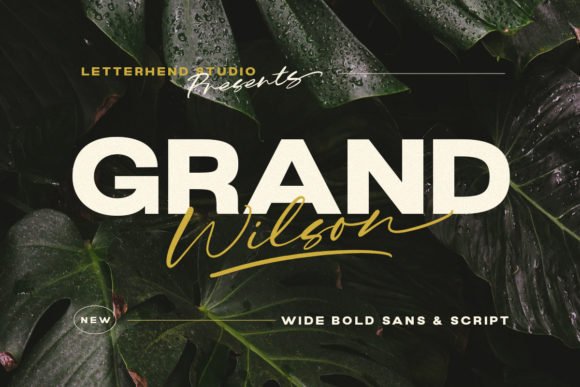
Meet Your New Design BFF: The Grand Wilson Font
There’s nothing quite like the feeling of stumbling upon the perfect font for your next design project. It’s like the universe is aligning, and your creativity is flowing like never before. You’re scrolling through your favorite font library, and suddenly, a font catches your eye. Its simple yet elegant style makes you think, “This is it. This is the one.”
That’s where the Grand Wilson Font comes in – a versatile duo font that combines the sleekness of a sans serif with the flair of a script. With its neat and simple design, it’s perfect for a wide range of projects, from logos and branding to digital graphics and typography.
As a designer, you know how valuable it is to have a reliable go-to font that can elevate your designs to the next level. The Grand Wilson Font is that font, offering a unique blend of style and flexibility that’s sure to become your favorite.
Grand Wilson Font Key Features
- Font Family: Grand Wilson Font is a high-quality sans-serif font designed for various digital applications.
- Character Set: Includes a wide range of characters, including Latin, Cyrillic, and Greek alphabets, as well as various punctuation marks and symbols.
- Unique Characteristics: Grand Wilson Font features a clean and modern design, with subtle rounded edges and a balanced x-height, making it perfect for corporate branding, digital interfaces, and editorial content.
Designer Review: Grand Wilson Font
Overall, I found the Grand Wilson Font to be a solid choice for a classic, elegant look. ✨ Here are some of its strengths:
- Beautifully crafted letterforms that evoke a sense of sophistication and refinement.
- Wide range of font weights and styles, making it suitable for a variety of design applications.
- Excellent legibility, even at smaller font sizes.
- The font may feel a bit too traditional for some modern design projects.
- The x-height could be improved for better readability in certain contexts.
- The font family may not be as extensive as some other popular font families.
Overall, I’d say the Grand Wilson Font is a great choice for designers who want to add a touch of classic elegance to their projects. While it may not be the most cutting-edge font, it’s a reliable and versatile option that can help to create a professional, timeless look. With a bit of creativity and experimentation, the Grand Wilson Font can be a valuable addition to any designer’s toolkit.
For best results, use Grand Wilson Font in headings and titles to add a touch of elegance and sophistication. You can also use it in body text for a more modern and clean look. Be mindful of font sizes and line spacing to ensure readability.
Comparison to Grand Wilson Font: Playfair Display is more ornate and luxurious, making it suitable for high-end branding. Grand Wilson Font is more versatile and can be used in a wider range of applications.
Comparison to Grand Wilson Font: Merriweather is more classic and timeless, while Grand Wilson Font has a more modern feel. Merriweather is also more suitable for body text, while Grand Wilson Font is more versatile for titles and headings.